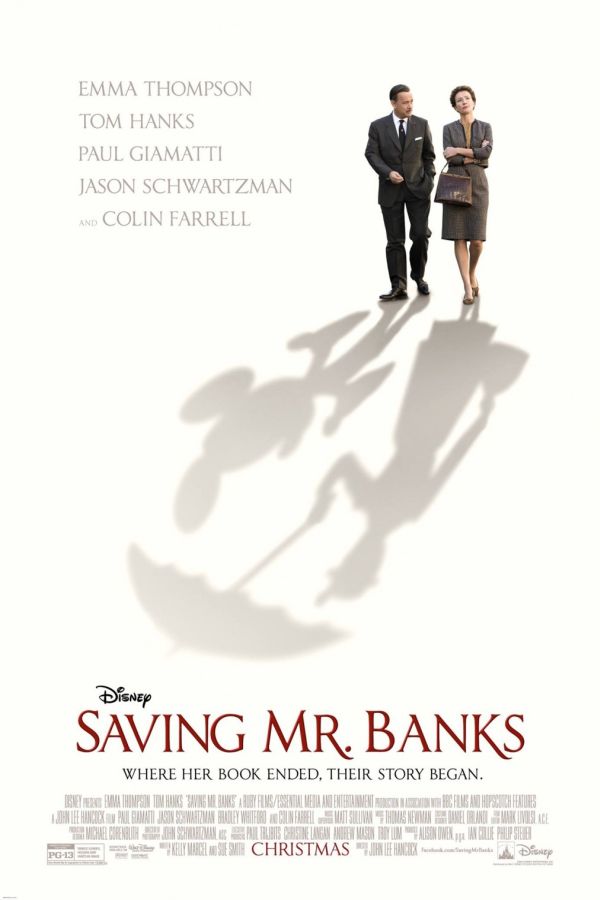
Saving Mr. Banks Font
Fonts in UseSaving Mr. Banks is a 2013 biographical drama film that tells the story of Walt Disney's two-week effort to convince author P.L. Travers to sell him the film rights to her popular book, Mary Poppins.
The movie title "Saving Mr. Banks" is likely written in Anavio Regular font, which was created by Paul James Lloyd and draws inspiration from classical Roman serifs. Further information regarding the font can be found here.